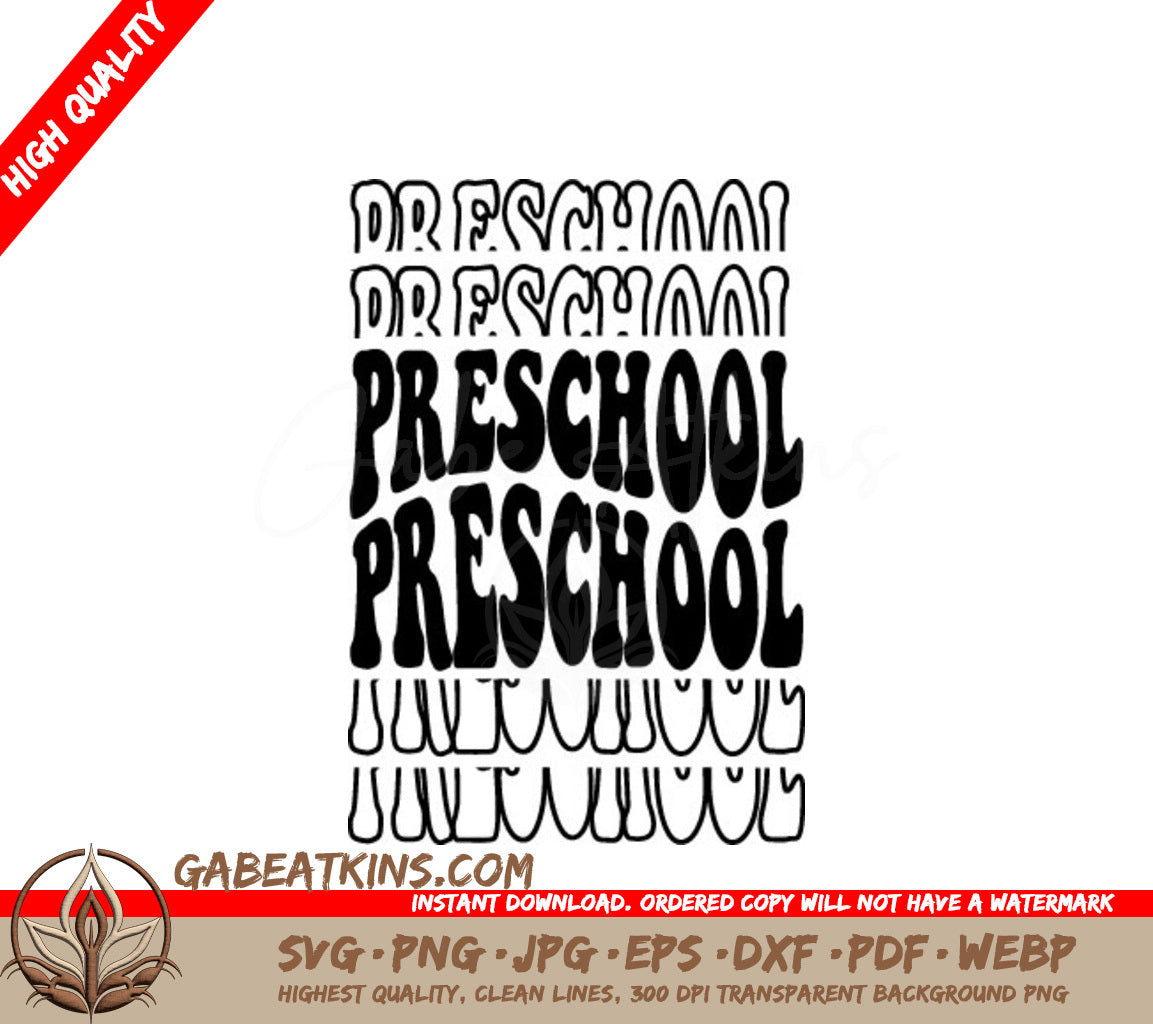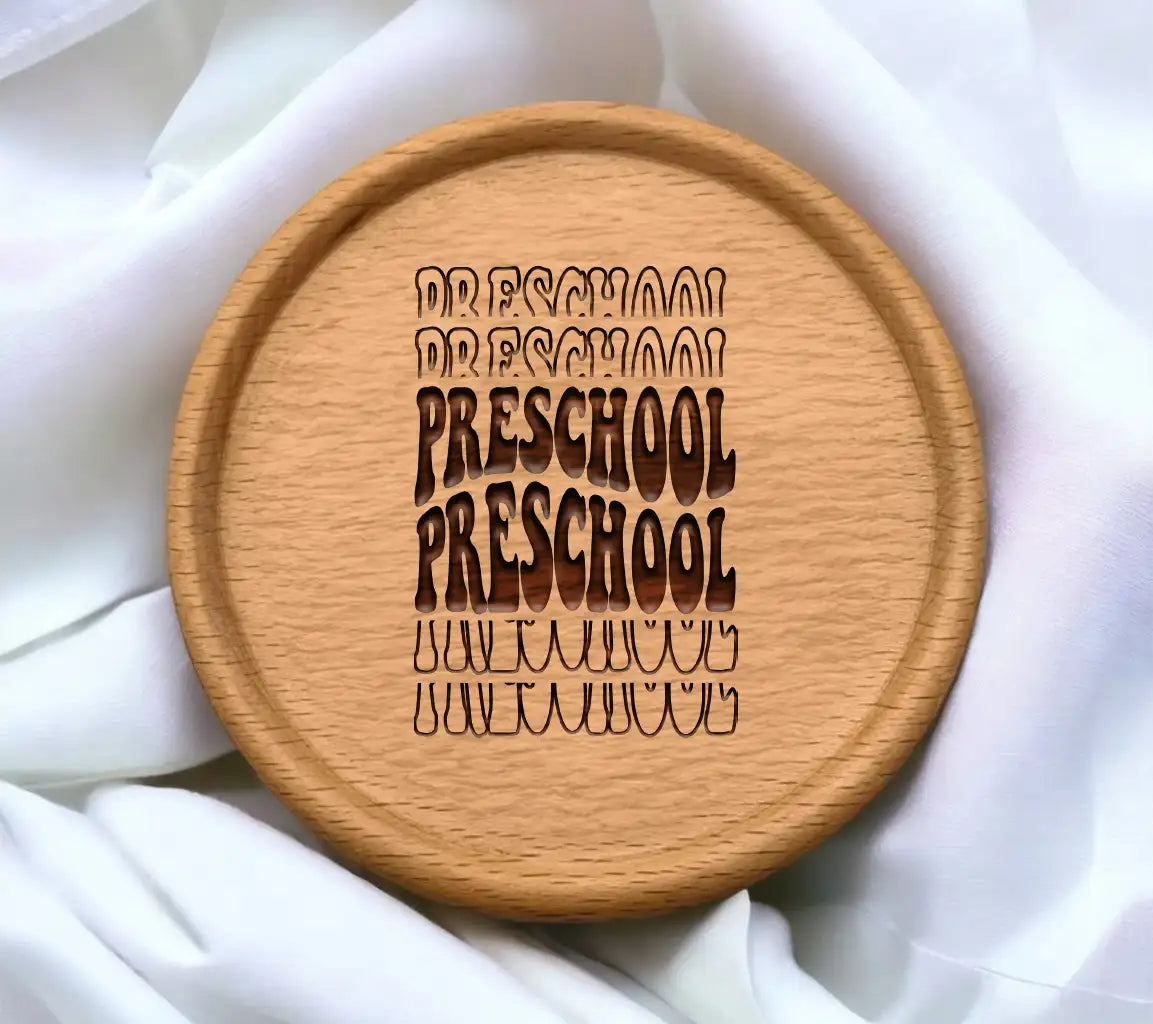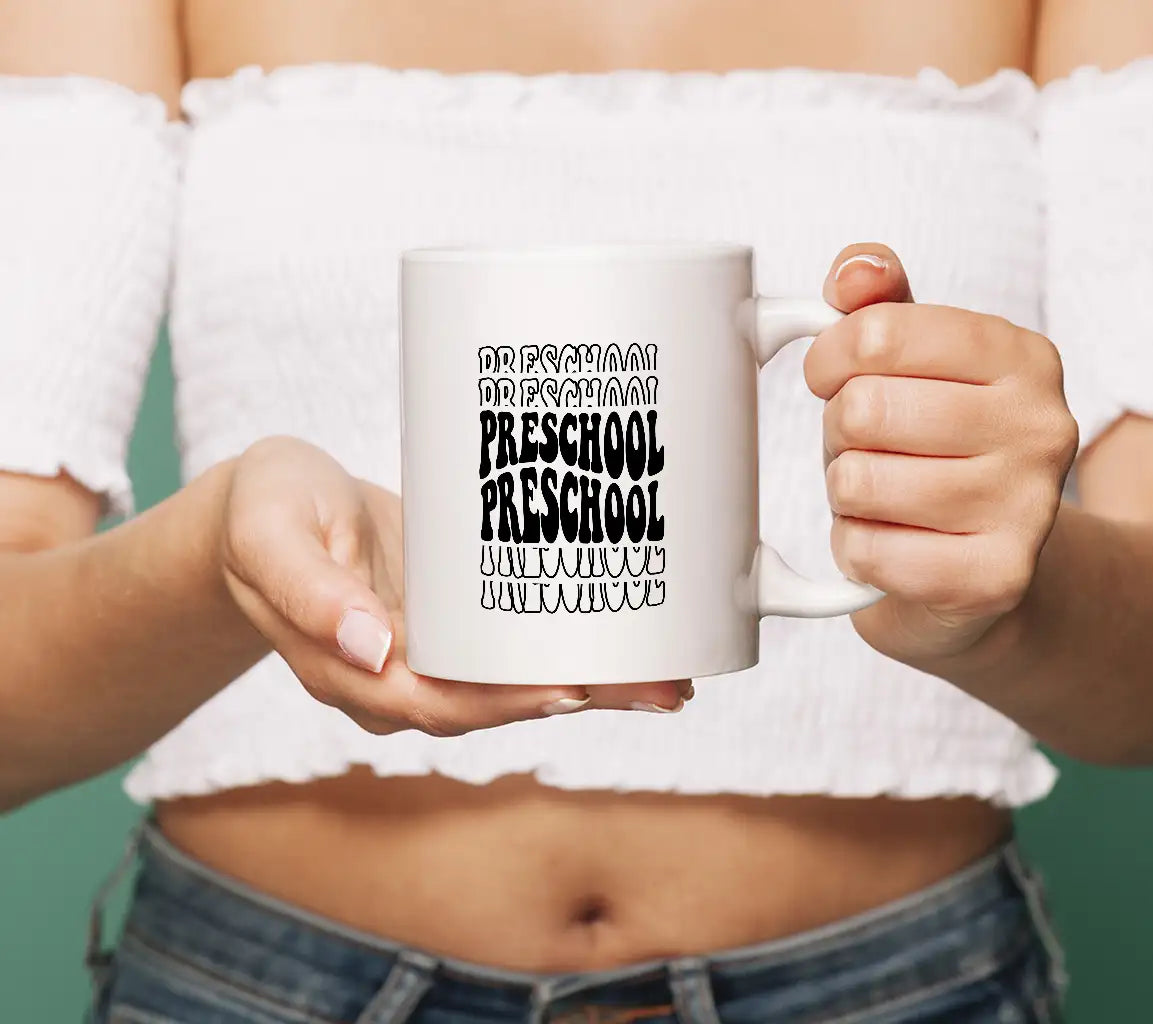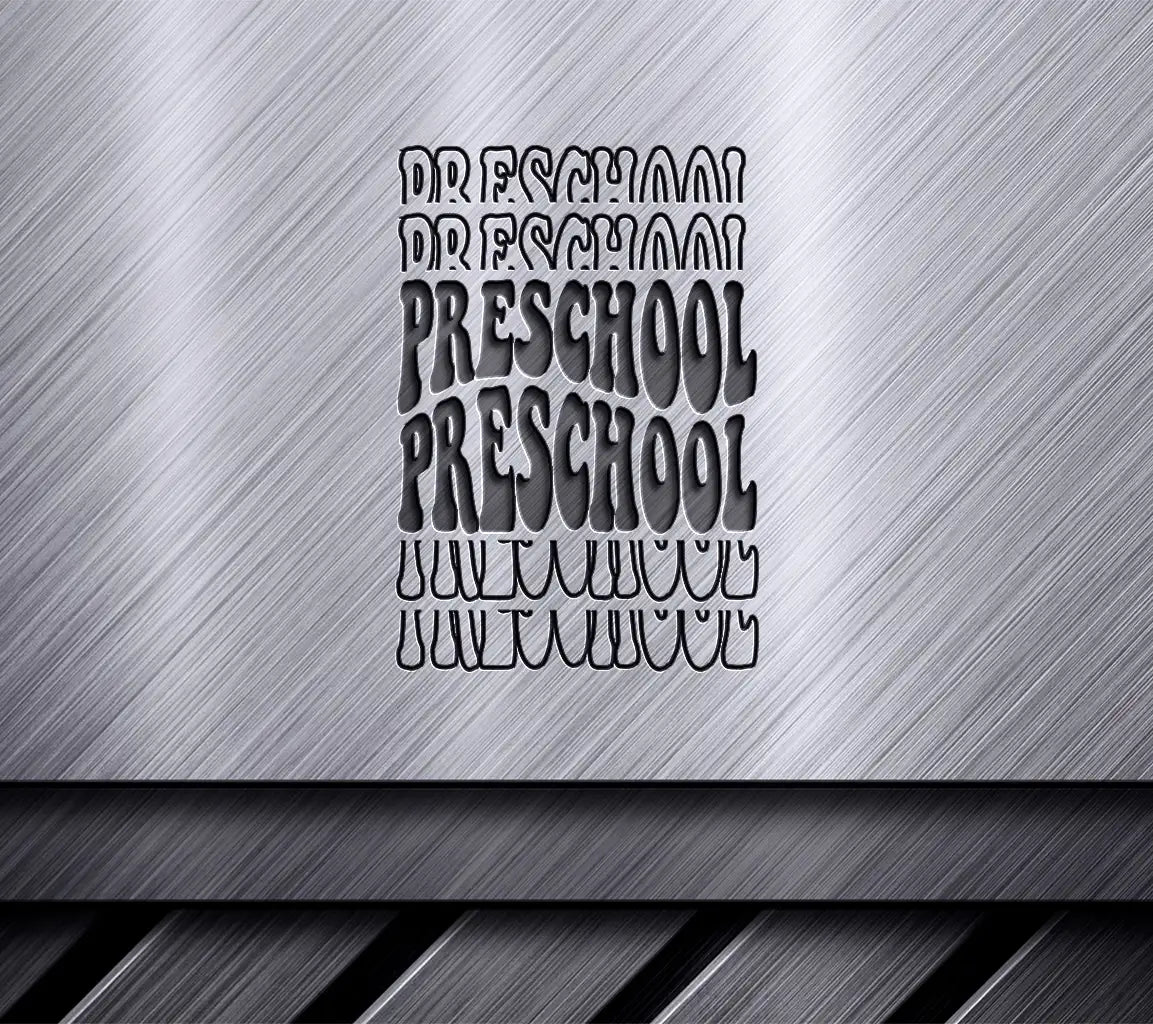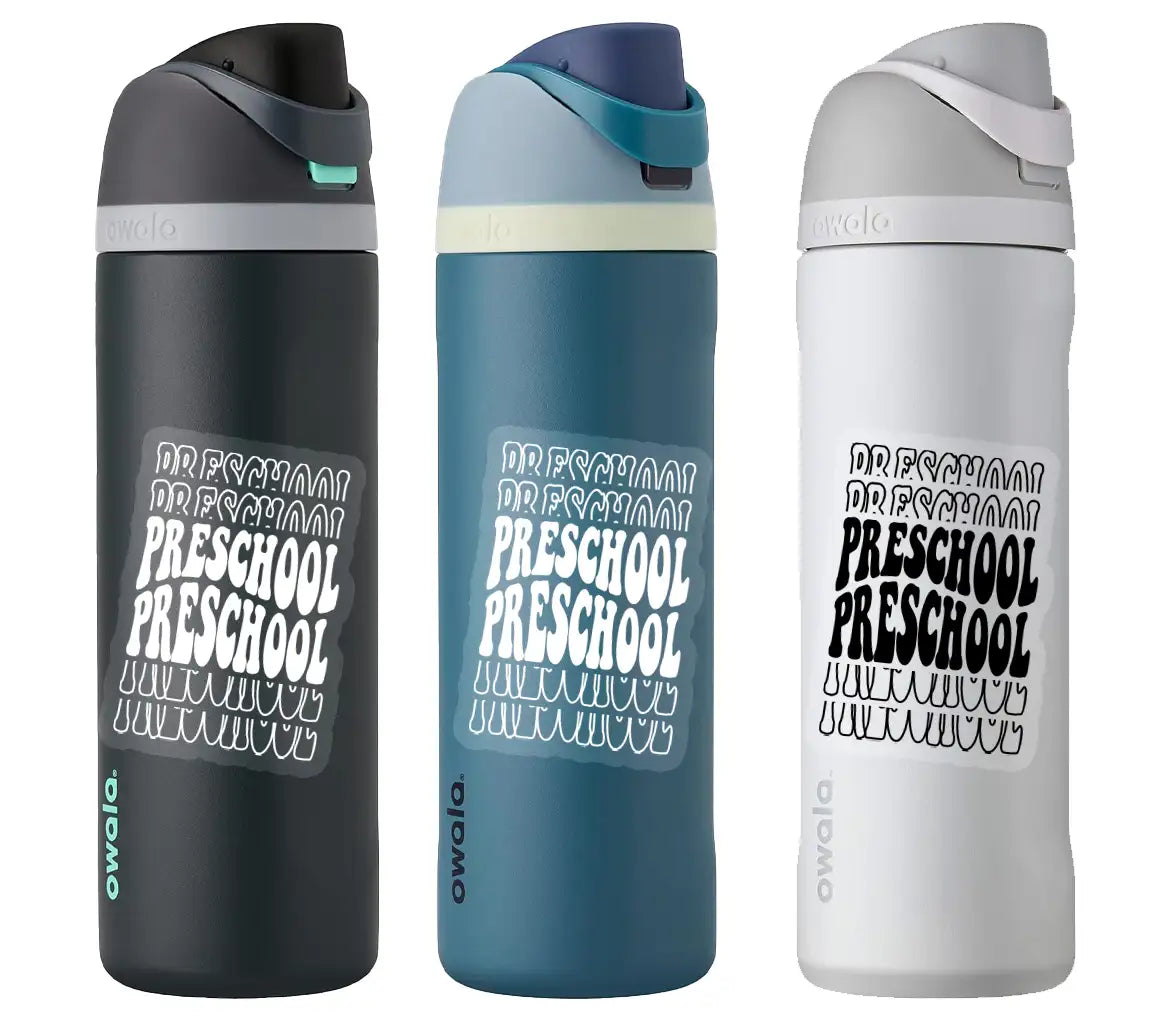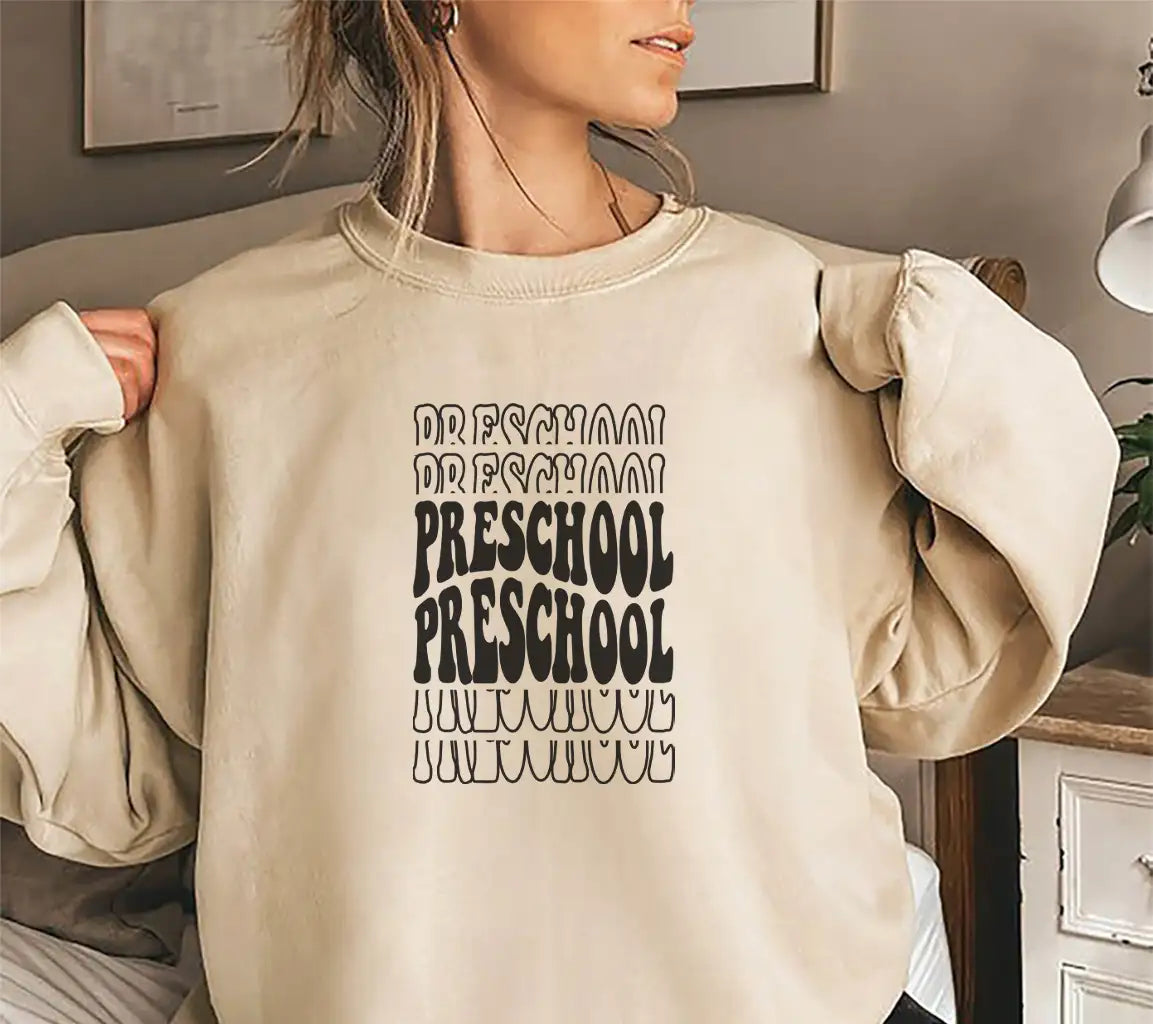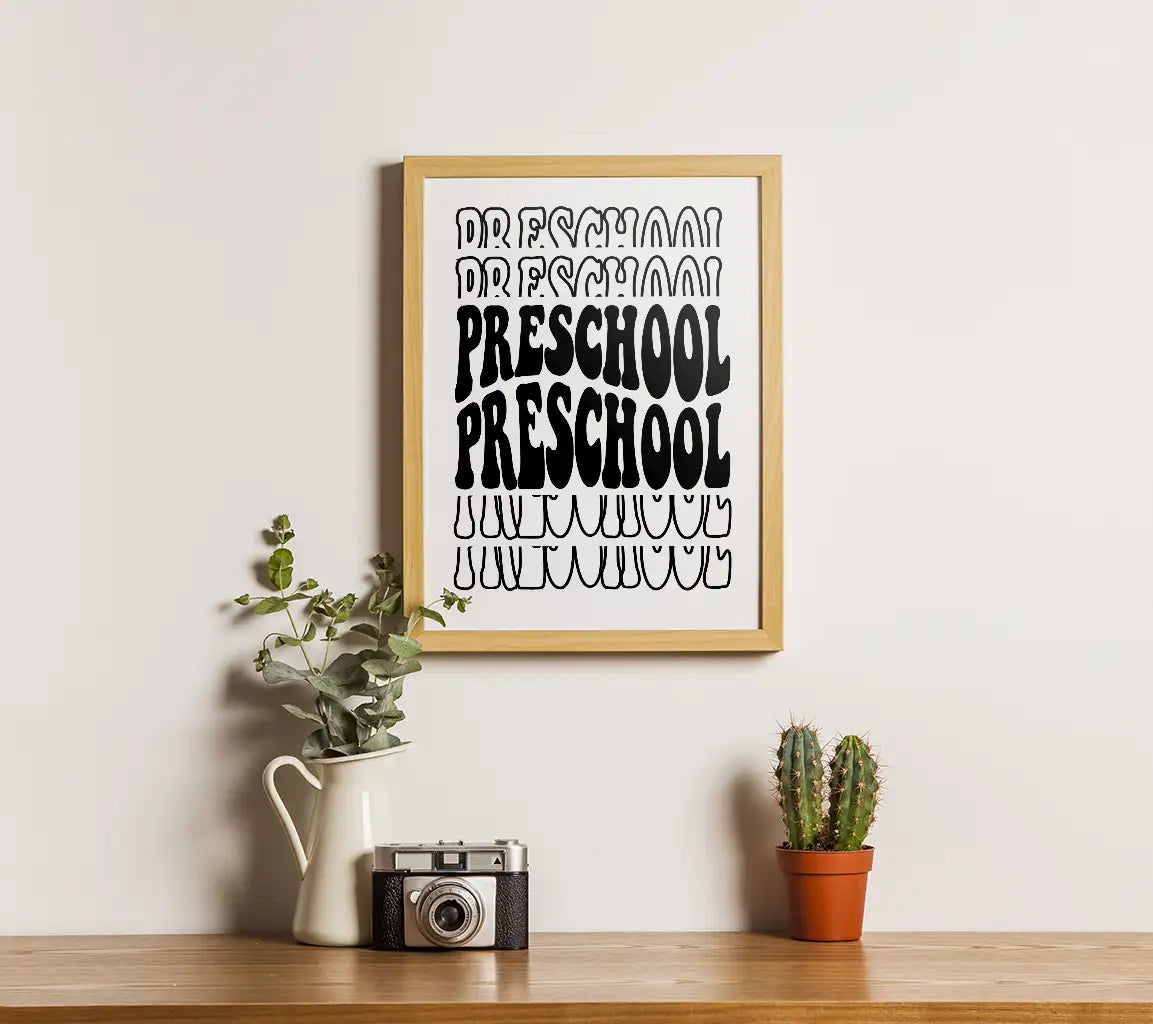
Get ready to create adorable and engaging learning materials for preschoolers with this delightful Preschool Font SVG! This whimsical font is perfect for adding a touch of fun and charm to all your classroom decorations, worksheets, activities, invitations, and more.
This font is easy to read and visually appealing, making it ideal for young learners. Download it today and start creating fun and educational materials that will delight your students!